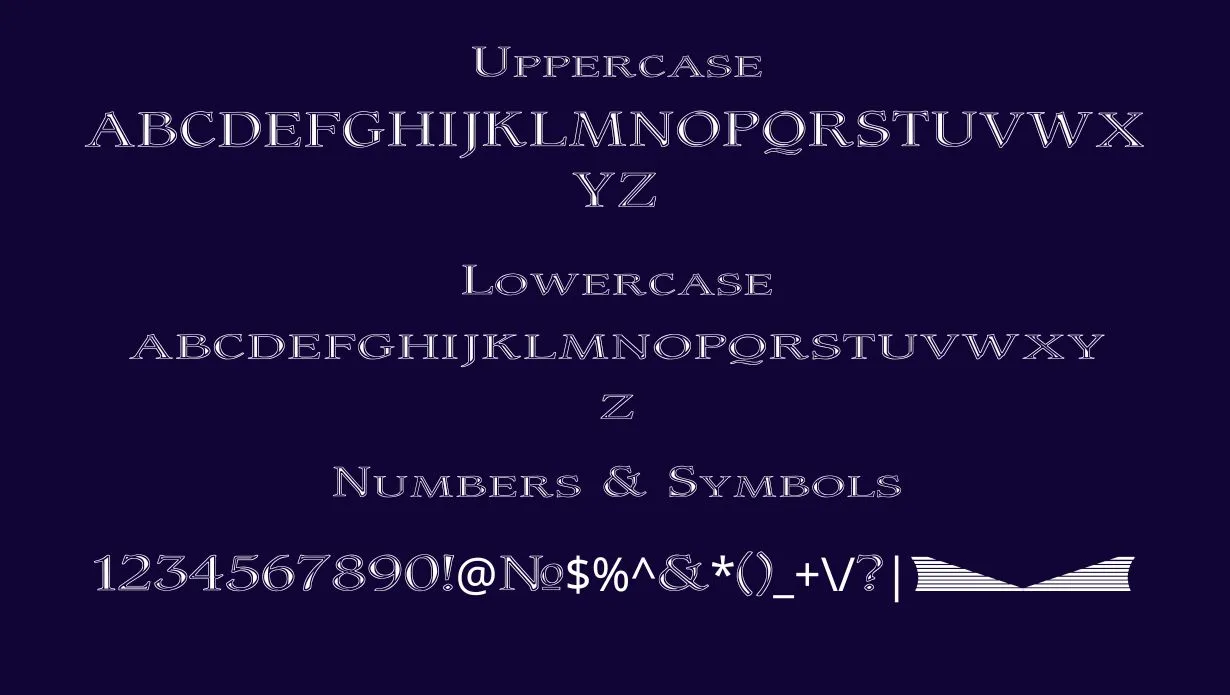
Coltaine is a very attractive display font that was designed by Paul Lloyd. It has amazing features so you can use it for making banners, posters, flyers and brochures also. All characters in this typeface have outlines that look very attractive.
It contains 89 characters, 91 glyphs, and 1000 units per Em. Unicode supported BMP only. Unicode blocks support Basic-Latin, Lati-1 supplement, and General punctuations. The weight and width of the are medium (normal).
| Name | Coltaine Font |
| Designer | Paul Lloyd |